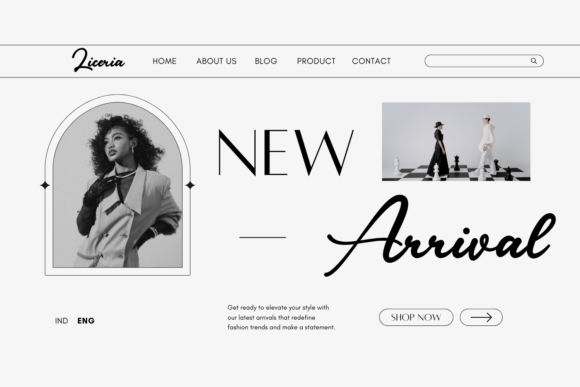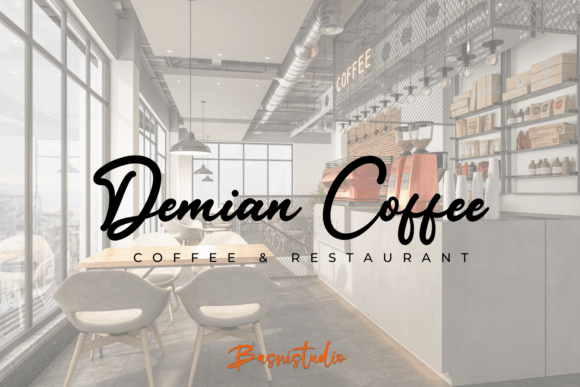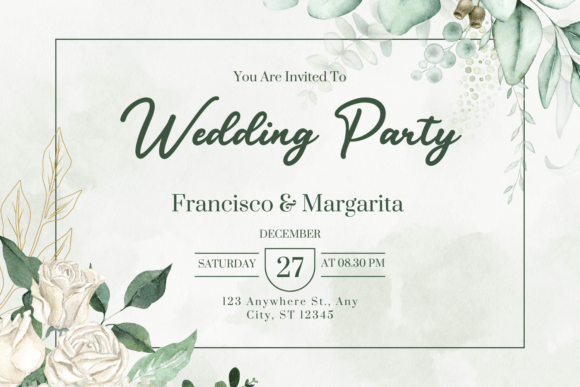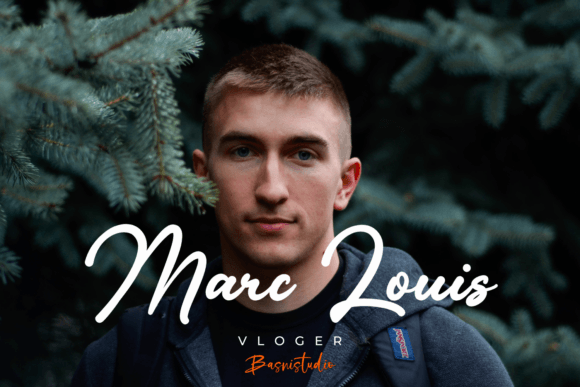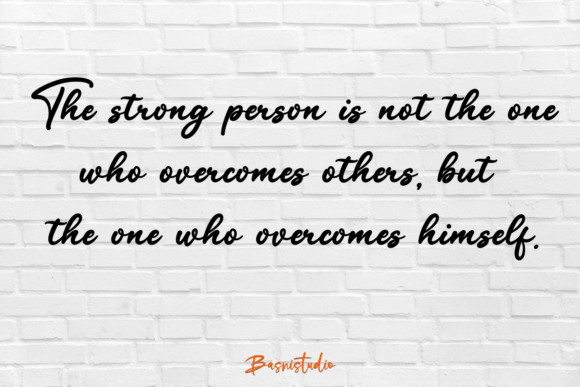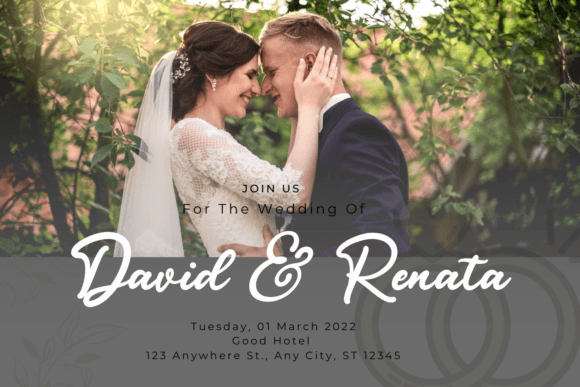
Introduction to Abingaile Font
Have you ever been stuck on a creative project, searching for the perfect font to bring your design to life? That’s where the Abingaile Font comes in – a bold, playful, and stylish handwritten font that’s sure to add a personal touch to any project. Its thick strokes and friendly appearance make it the perfect choice for creating invitations, quotes, or logos that exude a cheerful and casual vibe.
Whether you’re a seasoned designer or just starting out, the Abingaile Font is an invaluable resource that can elevate your designs to the next level. With its high-quality design and transparent background, this font is perfect for any creative project. And the best part? It’s available for free download, making it accessible to designers of all levels.
Key Features of Abingaile Font
- Unique, elegant script font with a transparent background for seamless integration
- Perfect for wedding invitations, quotes, and other creative projects requiring a touch of elegance
Honest Review: Abingaile Font
I recently stumbled upon the Abingaile Font while searching for a design resource to elevate my creative project. I was immediately drawn to its elegant and sophisticated style, perfect for a high-end brand or luxury product.
What works well about the Abingaile Font is its versatility. It’s available in a range of weights and styles, allowing designers to experiment with different looks and feels. The font also features a transparent background, making it easy to place over images or other design elements.
However, I did encounter some limitations with the font. It’s not suitable for all types of projects, particularly those that require bold or playful typography.
Additionally, some users may find the font to be a bit too elegant or sophisticated for their taste.
Overall, I’m impressed with the Abingaile Font and would recommend it to designers working on high-end or luxury projects. While it may not be suitable for all types of designs, its high-quality design and versatility make it a valuable addition to any design resource library.
The Abingaile Font is ideal for creative projects, including blog posts, social media graphics, and presentations. Use it to add a touch of elegance and sophistication to your designs.
Alternatives to Abingaile Font
The Great Vibes Font is a high-quality, cursive script font that is perfect for creative projects requiring a touch of elegance and sophistication. It features a transparent background, making it ideal for use on a variety of design resources, from posters to invitations.
When to use: Wedding invitations, birthday cards, or any project that requires a romantic and elegant touch.
Comparison to Abingaile Font: While Abingaile Font is more modern and edgy, Great Vibes Font is more classic and timeless, making it a great alternative for designers looking for a softer, more romantic feel.
The Alex Brush Font is a beautiful, handwritten script font that is perfect for designers looking for a high-quality, free download for their creative projects. It features a transparent background and is ideal for use on design resources such as business cards, brochures, and websites.
When to use: Branding materials, marketing materials, or any project that requires a personal and elegant touch.
Does the Abingaile Font have a transparent background?
Yes, the Abingaile Font has a transparent background, making it perfect for use on any background or design element. This feature allows you to create visually appealing designs and combine the font with other design elements seamlessly.